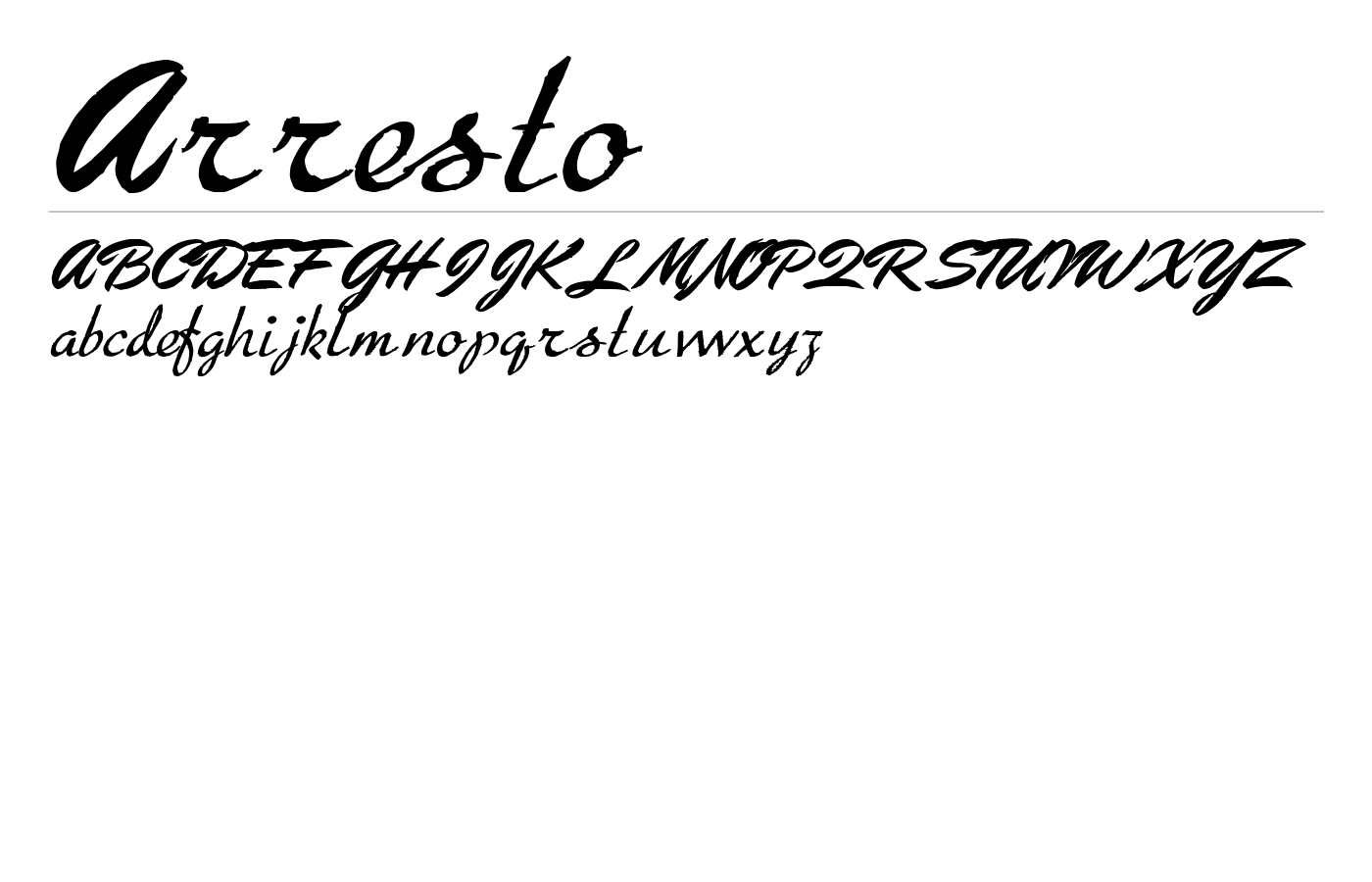
Arresto is an expressive script font with a bold, dynamic flow that resembles natural handwriting with ink-brush texture. Its high contrast strokes and slightly rough edges create a lively and artistic feel, making it ideal for creative branding, stylish logos, and eye-catching headlines that seek a personal, handcrafted touch. This font works well where a modern yet casual elegance is desired, especially in fashion, invitations, and boutique packaging.
Arresto Font